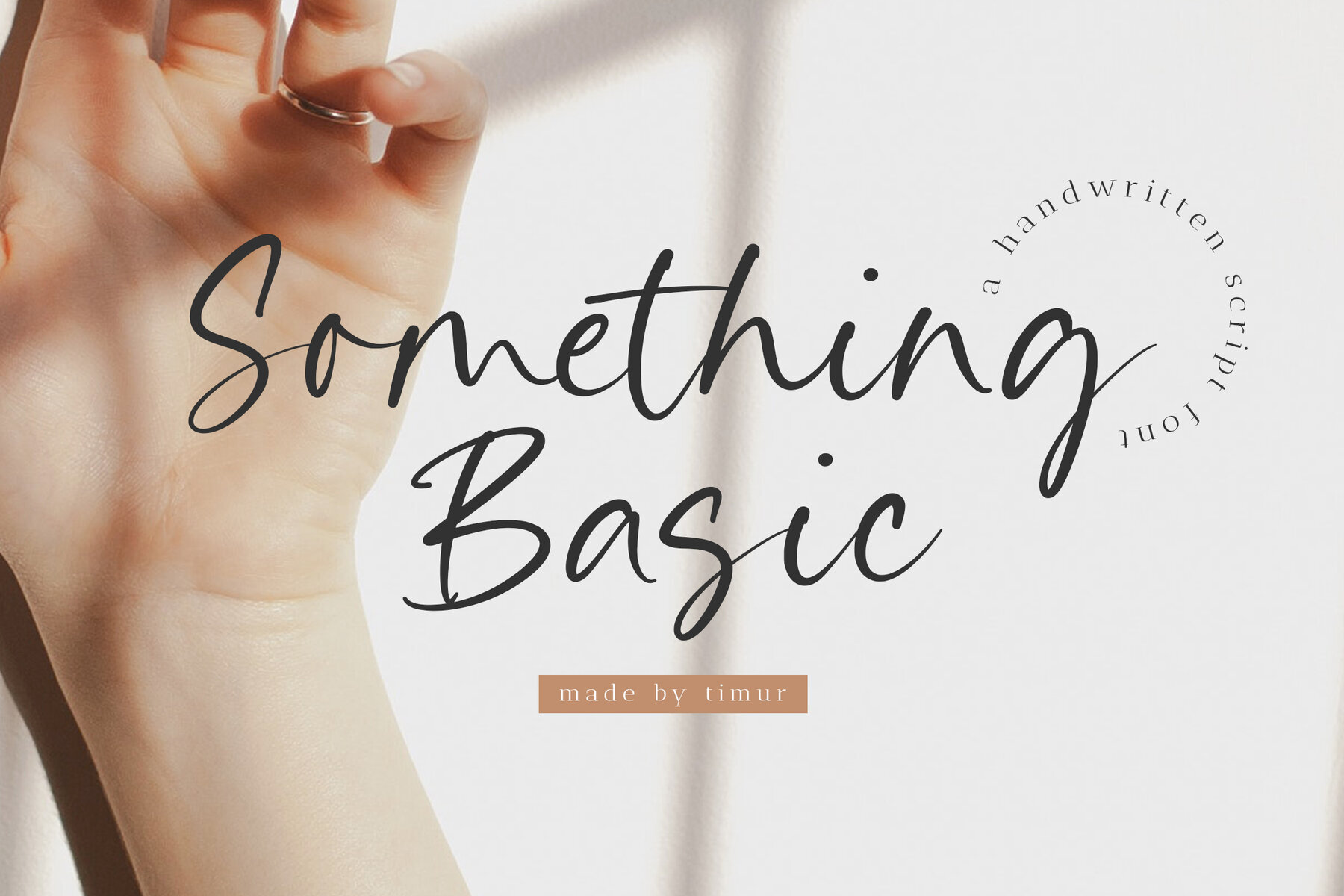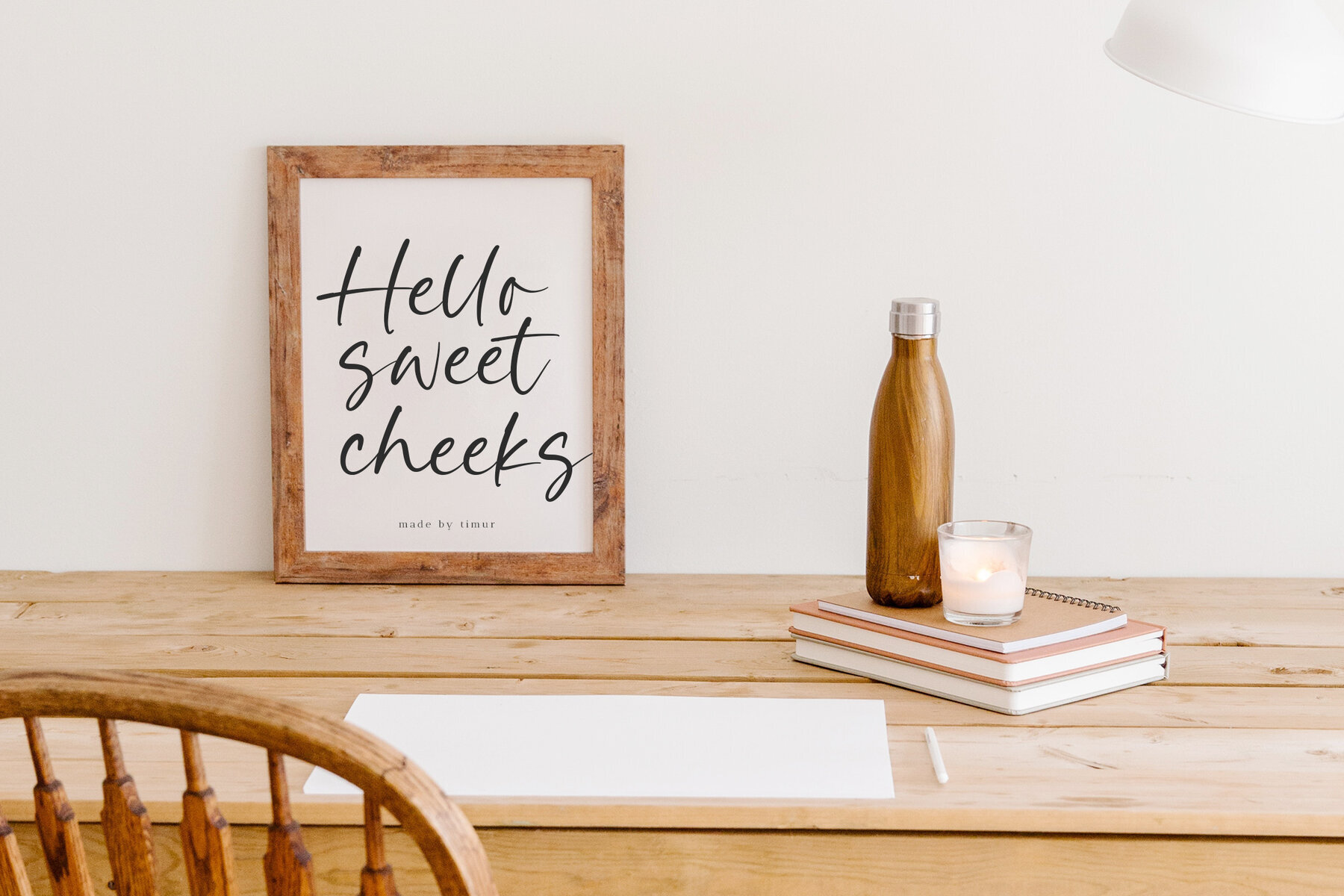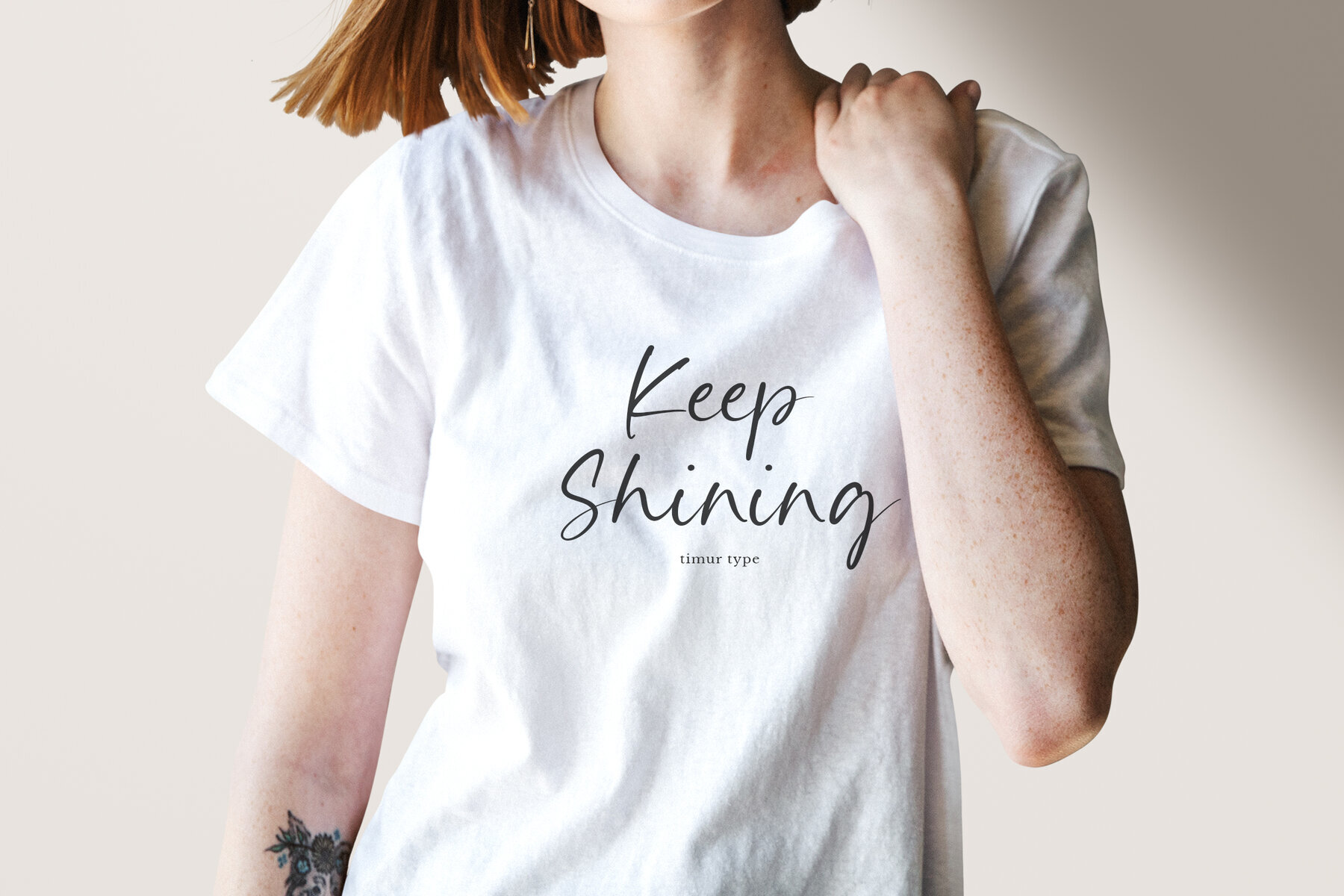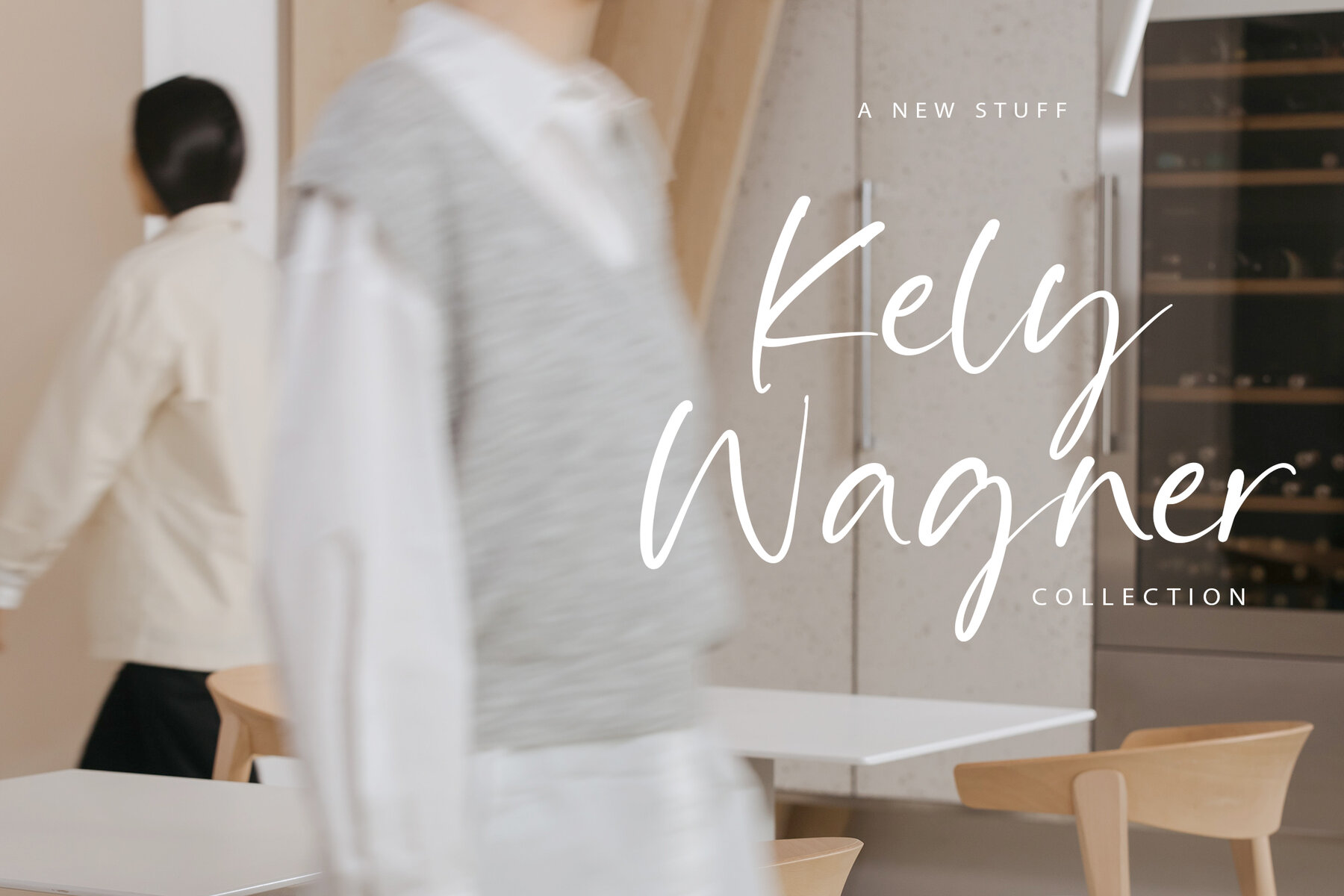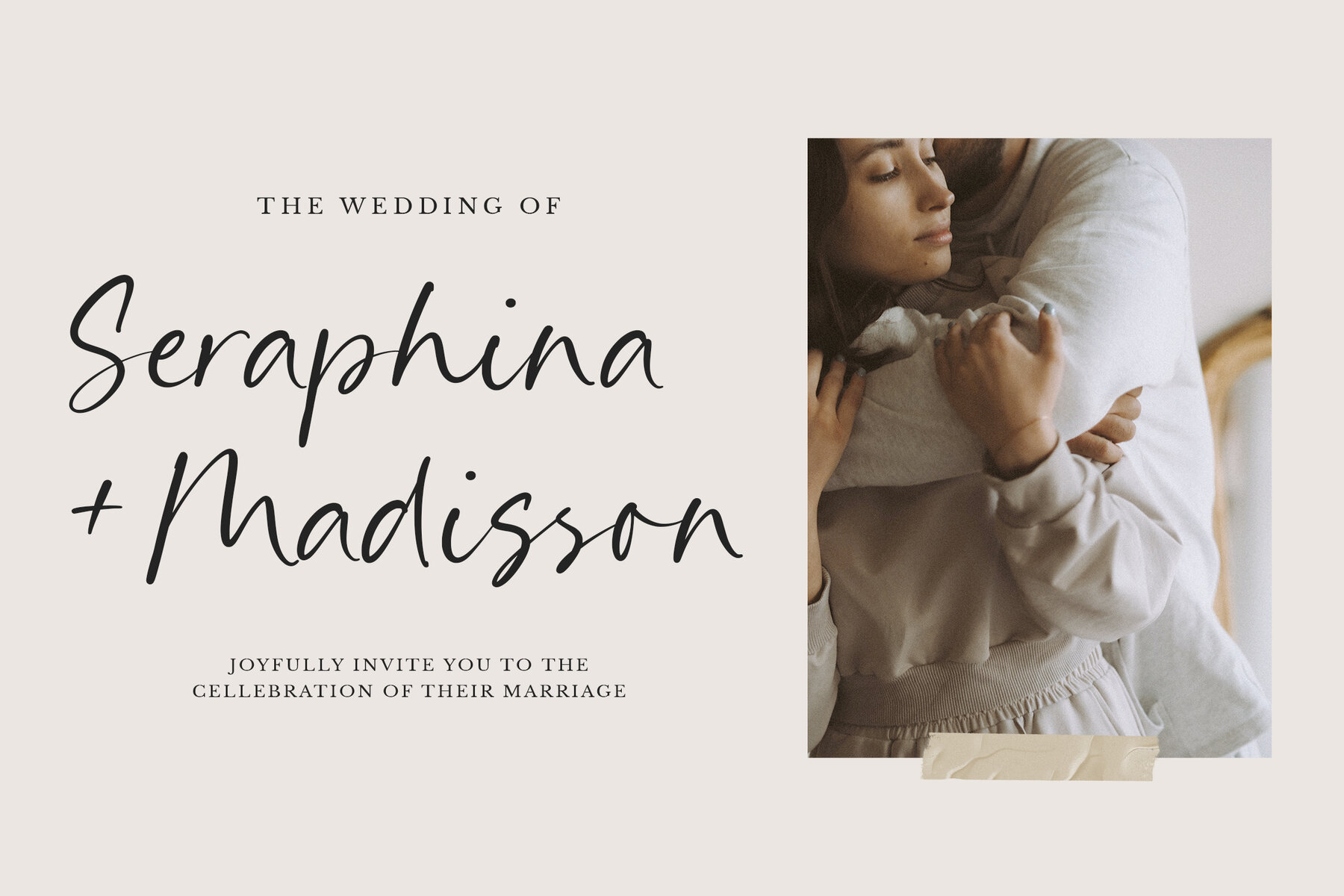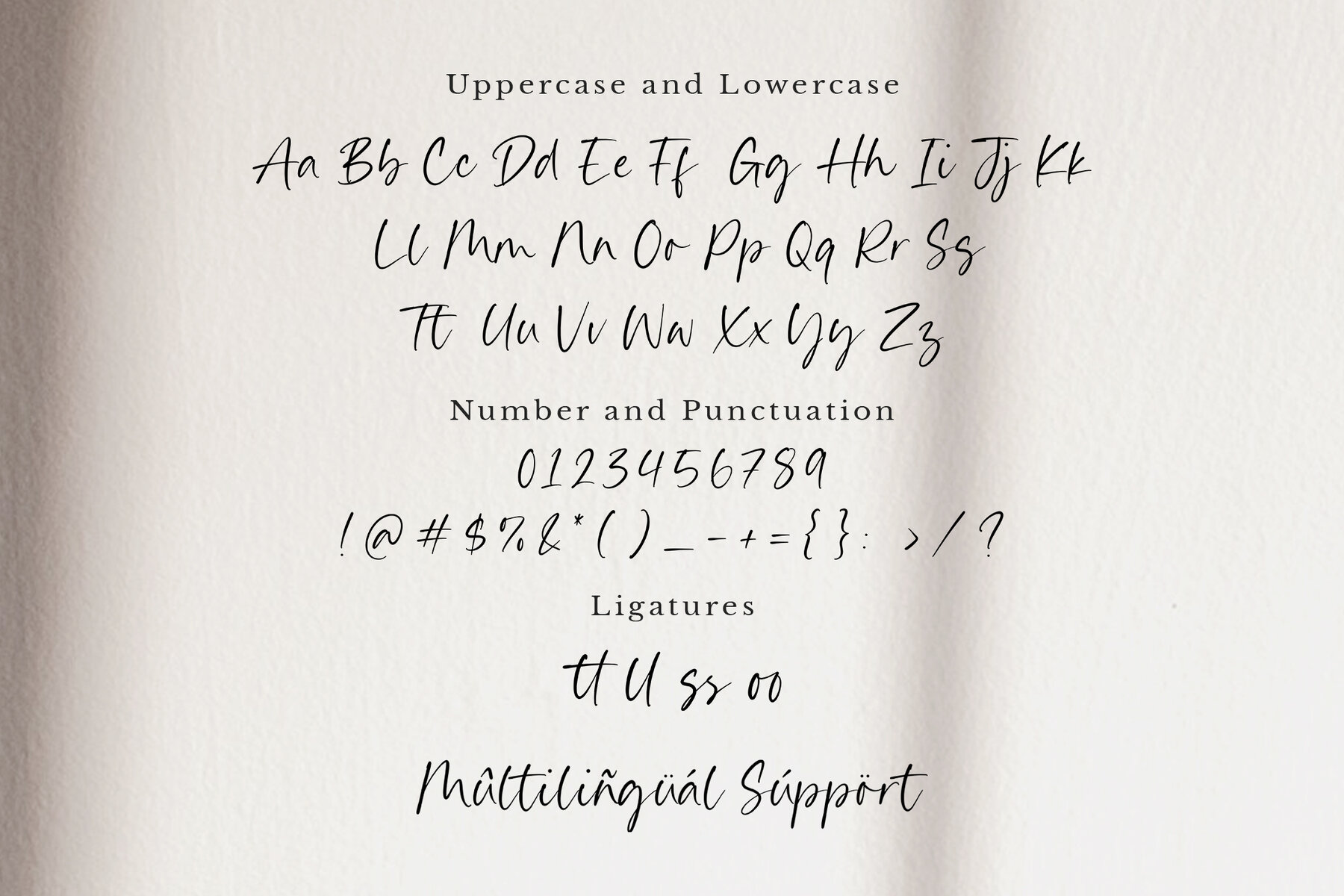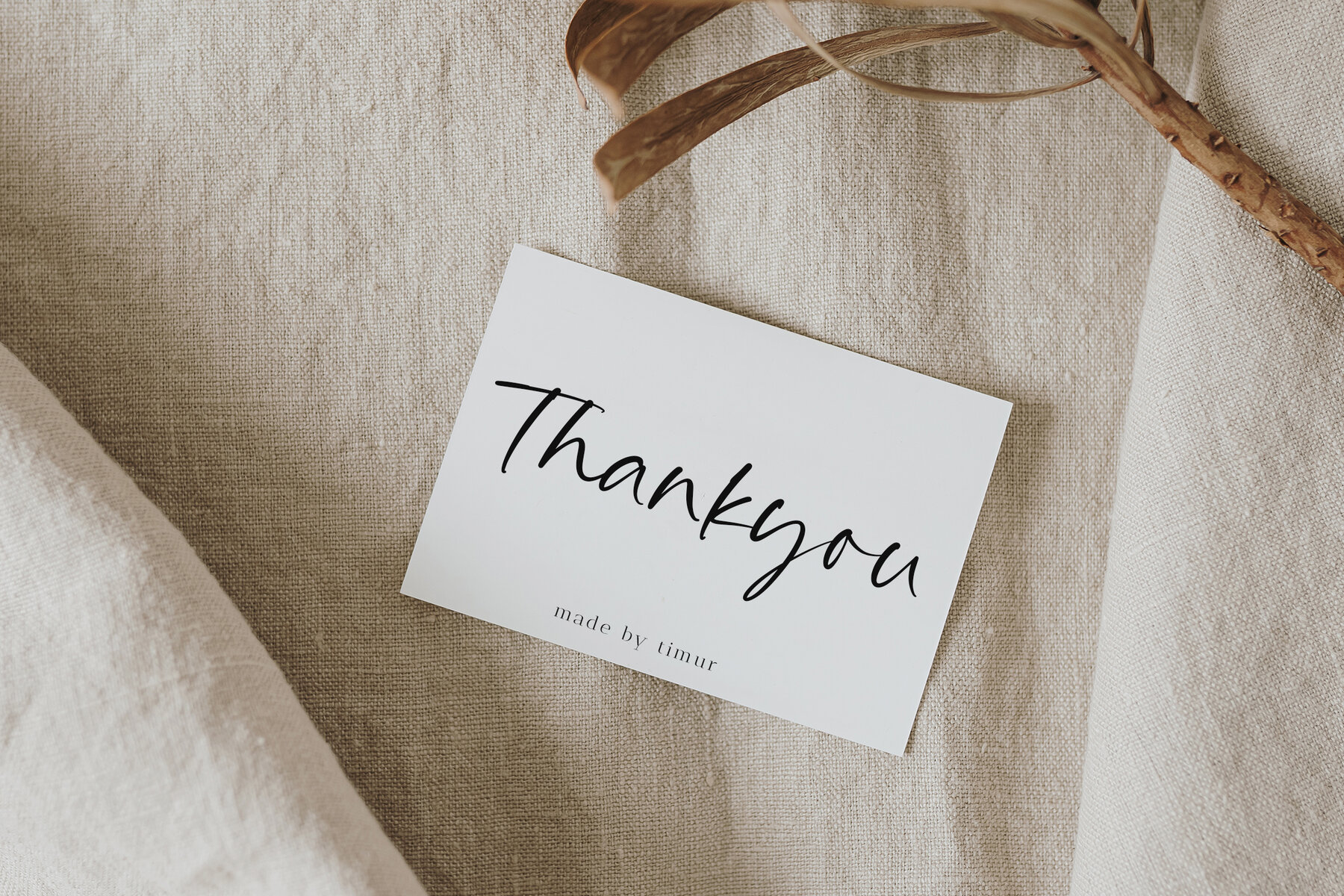
Something Basic Font
Something Basic
Something Basic, designed by Timurtype, is a contemporary handwritten script font characterized by its modern and fresh aesthetic. This font is crafted to convey a warm and inviting atmosphere, enhancing the visual appeal of your branding or personal projects. Utilize Something Basic to elevate the charm and appeal of various projects including, but not limited to, digital content, printed materials, and personal branding endeavors. The distinctiveness of Something Basic lies in its ability to create a direct connection with the audience through its casual yet stylish script, making it an excellent choice for designers aiming to add a touch of warmth to their creative works.Something Basic: A Modern Handwritten Script by Timurtype
Design Highlights
Practical Applications
Font Features and Benefits